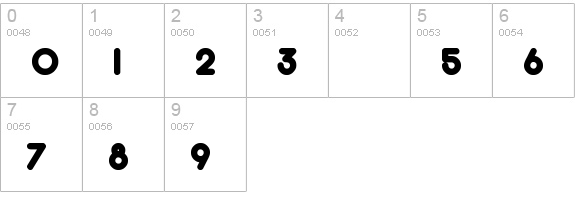
Tondo Font Details
Tondo is a modern and versatile font that perfectly balances elegance with simplicity. Its rounded edges give it a friendly and approachable look, making it ideal for a wide range of design projects. Whether you are creating a logo, poster, website, or any other visual content, Tondo is sure to make a statement. The best part? Tondo is available for free download at FontsMarket.com. This means you can easily access this beautiful font and use it in your projects without any cost. With its clean and stylish design, Tondo is a must-have addition to any designer's toolkit. Download Tondo today and elevate your designs with this stunning free font.